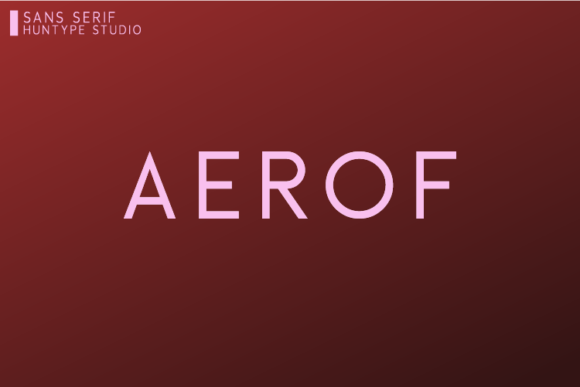
Introducing Aerof Font - The Epitome of Simplicity and Clarity in Typography
In the vast landscape of digital design, fonts play a pivotal role in shaping the visual identity of your creations. Aerof Font, a captivating sans serif masterpiece, emerges as a beacon of simplicity and clarity, promising to elevate your designs to new heights of sophistication.
Crafted with meticulous attention to detail, Aerof Font exudes a clean and understated elegance that complements both formal and casual design aesthetics. Its neat and beautifully arranged letters present a visual harmony that draws the eye and captivates the senses.
As a sans serif font, Aerof Font possesses a clean and unadorned structure, devoid of the decorative flourishes that often distract from the essence of typography. This simplicity lends Aerof Font an air of timelessness, ensuring that your designs remain relevant and visually appealing for years to come.
Beyond its aesthetic allure, Aerof Font boasts exceptional versatility, adapting seamlessly to a diverse range of design applications. Whether you're crafting elegant logos, captivating brochures, or eye-catching social media graphics, Aerof Font rises to the occasion, delivering a consistent and polished look that commands attention.
Unleash your creativity and let Aerof Font infuse your designs with a touch of sophistication. Dive into a world of endless possibilities, where simplicity and clarity reign supreme. Embrace the power of Aerof Font and watch your designs transform into captivating masterpieces that leave a lasting impression.